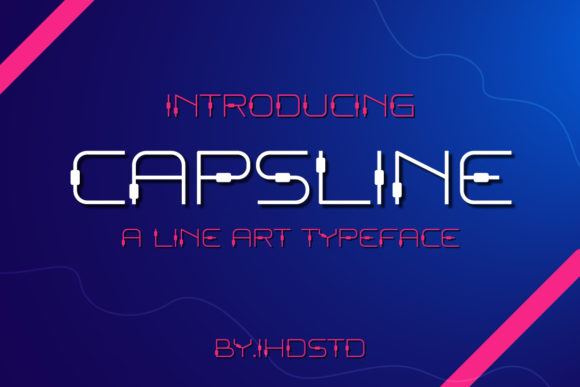
**Capsline Display Typeface: Elevate Your Designs with Captivating Display**
Immerse yourself in the bold and captivating realm of Capsline Display Typeface, a font that will ignite your imagination and transform your designs into captivating masterpieces. Crafted with precision and artistry, this display font empowers you to convey messages with an unforgettable impact.
Unleash your creativity with Capsline, a versatile font family that seamlessly adapts to a diverse array of projects. Its striking presence makes it an ideal choice for website text, adding a touch of elegance and distinction to your online presence. Each glyph has been meticulously designed to enhance readability and visual appeal, ensuring that your words captivate your audience.
Indulge in the expressive nature of Capsline, where every letter becomes a work of art. Its distinctive strokes and curves evoke a sense of sophistication and allure, making it the perfect font for creating posters, flyers, social media graphics, and more. The possibilities are limitless as you explore the captivating world of Capsline.
Embrace the power of Capsline and elevate your designs to new heights. Its versatility and captivating charm will leave an enduring impression on your audience, ensuring that your message resonates with impact and style. Experience the transformative power of Capsline Display Typeface today and unleash the true potential of your creative vision.